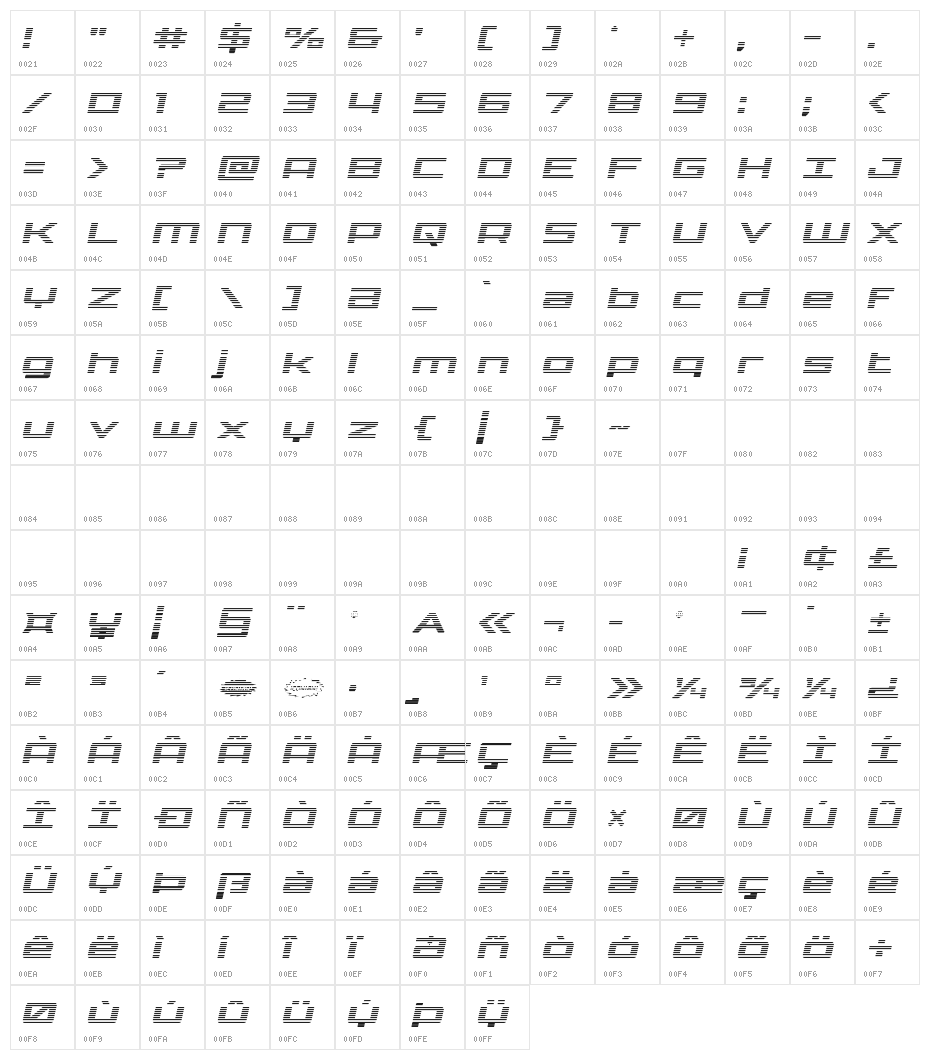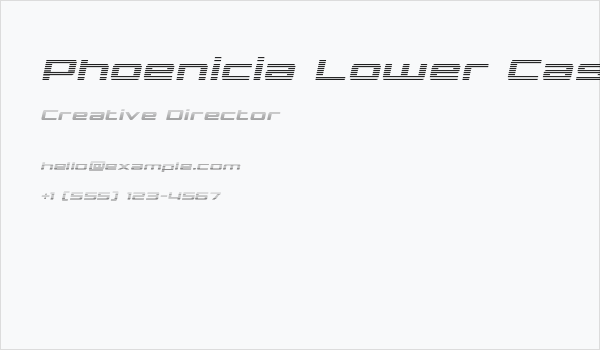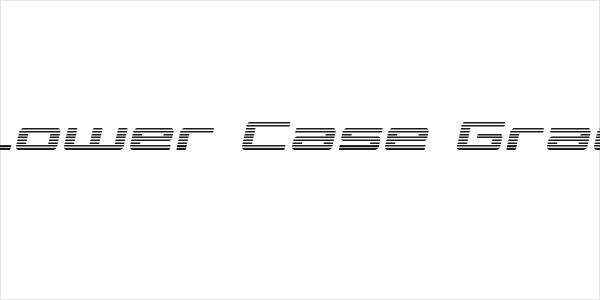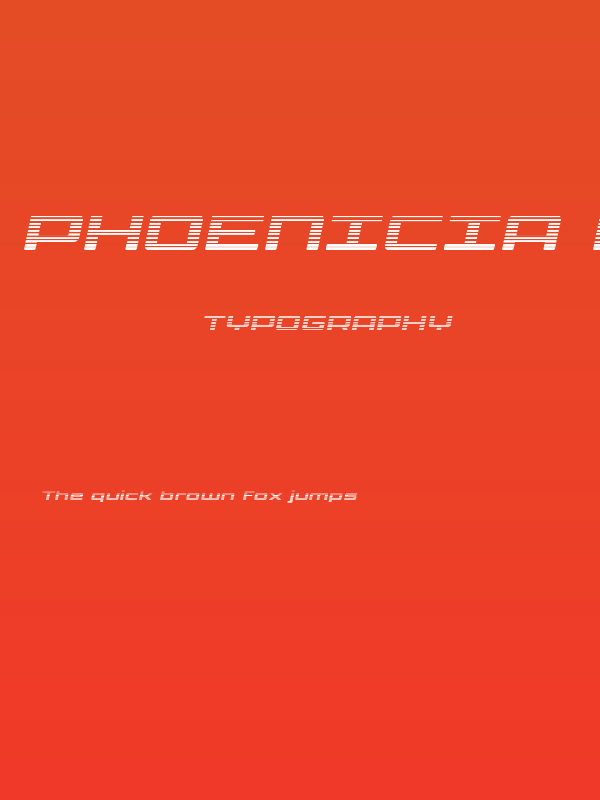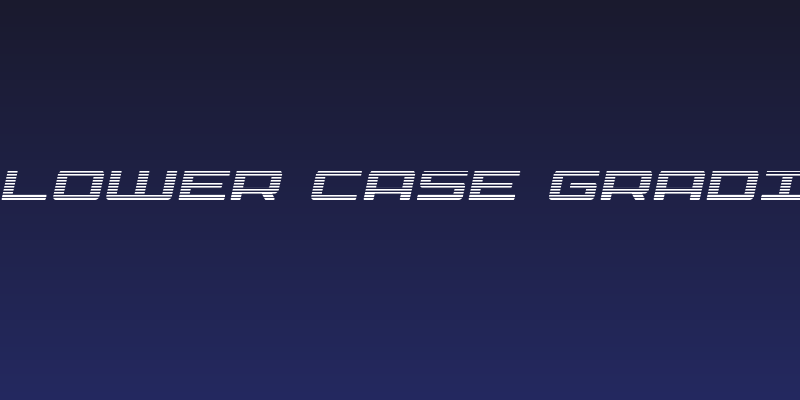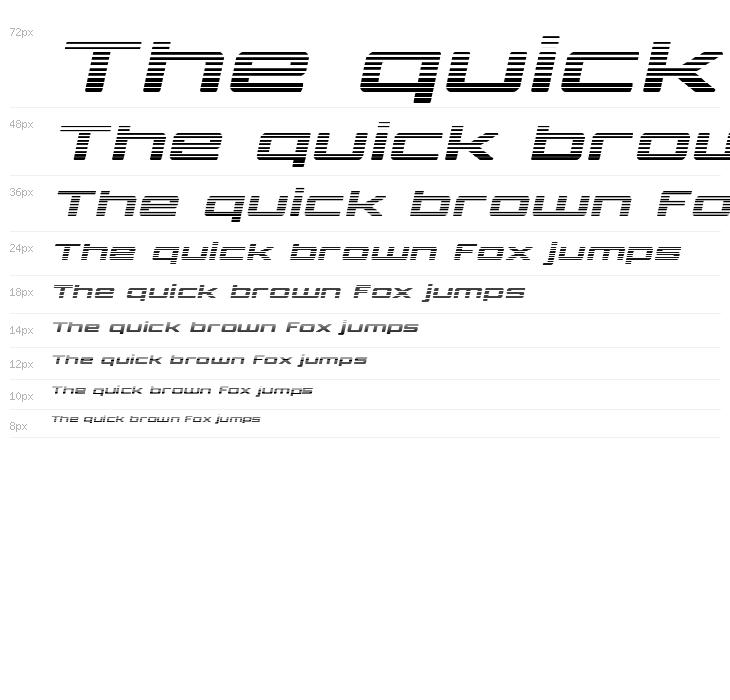
Phoenicia Lower Case Gradient Italic Font
Phoenicia Lower Case Gradient Italic Description
This font features a unique, futuristic design characterized by its gradient and italicized style. The letters are composed of horizontal lines that create a striped effect, giving it a dynamic and modern appearance. The italic slant adds a sense of motion and speed, making it ideal for projects that require a contemporary and energetic look. The font maintains a consistent structure across uppercase, lowercase, numbers, and special characters, ensuring uniformity. Its distinct style is both eye-catching and versatile, suitable for various creative applications.